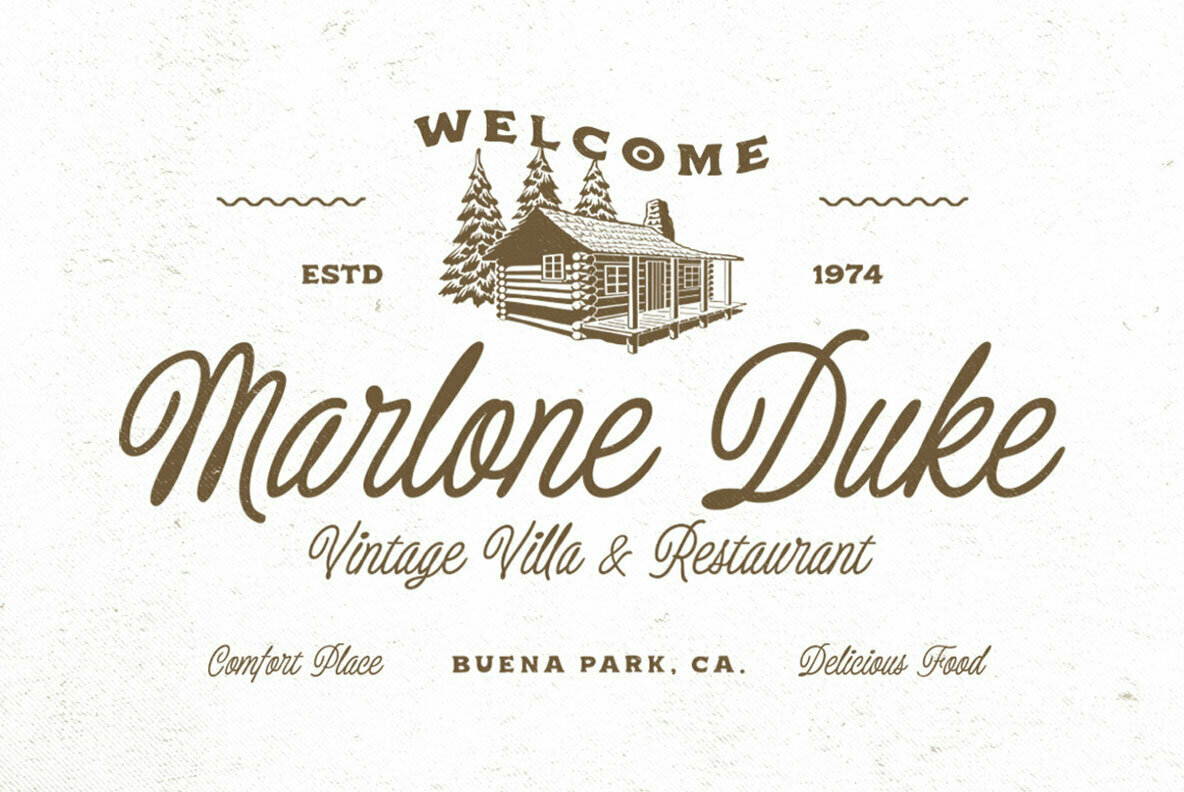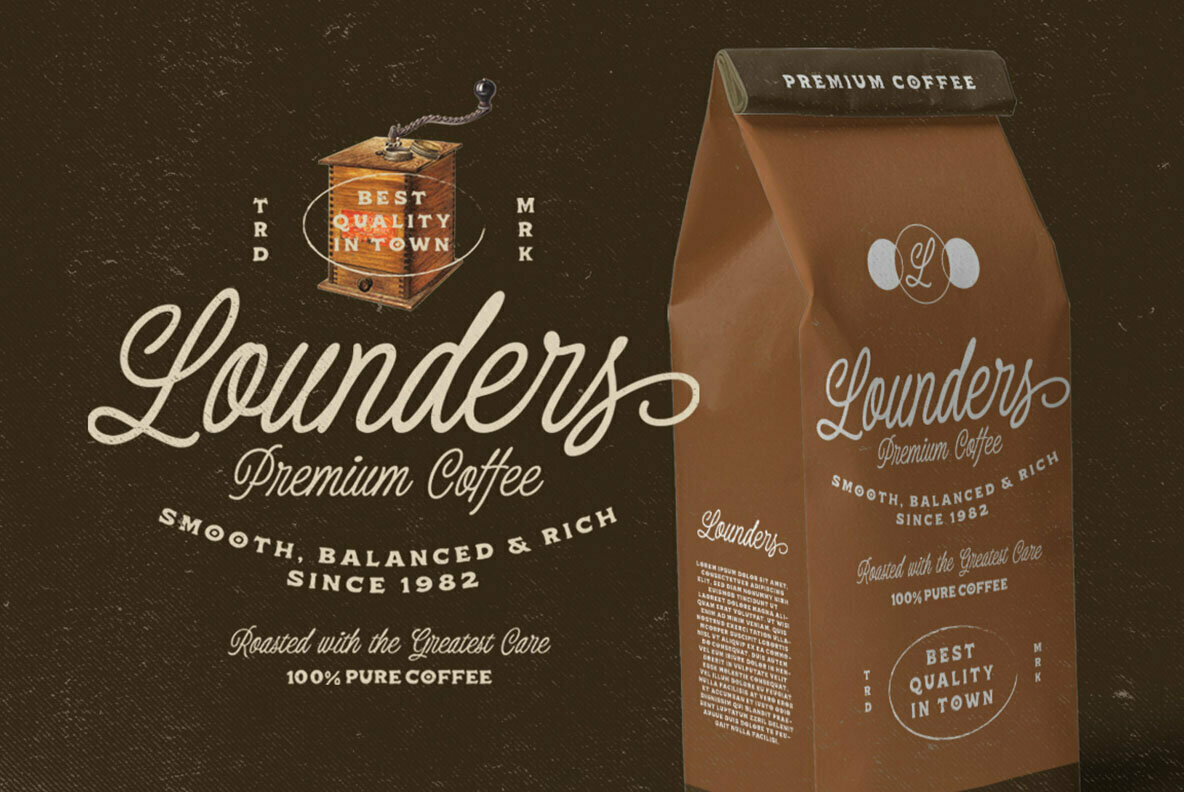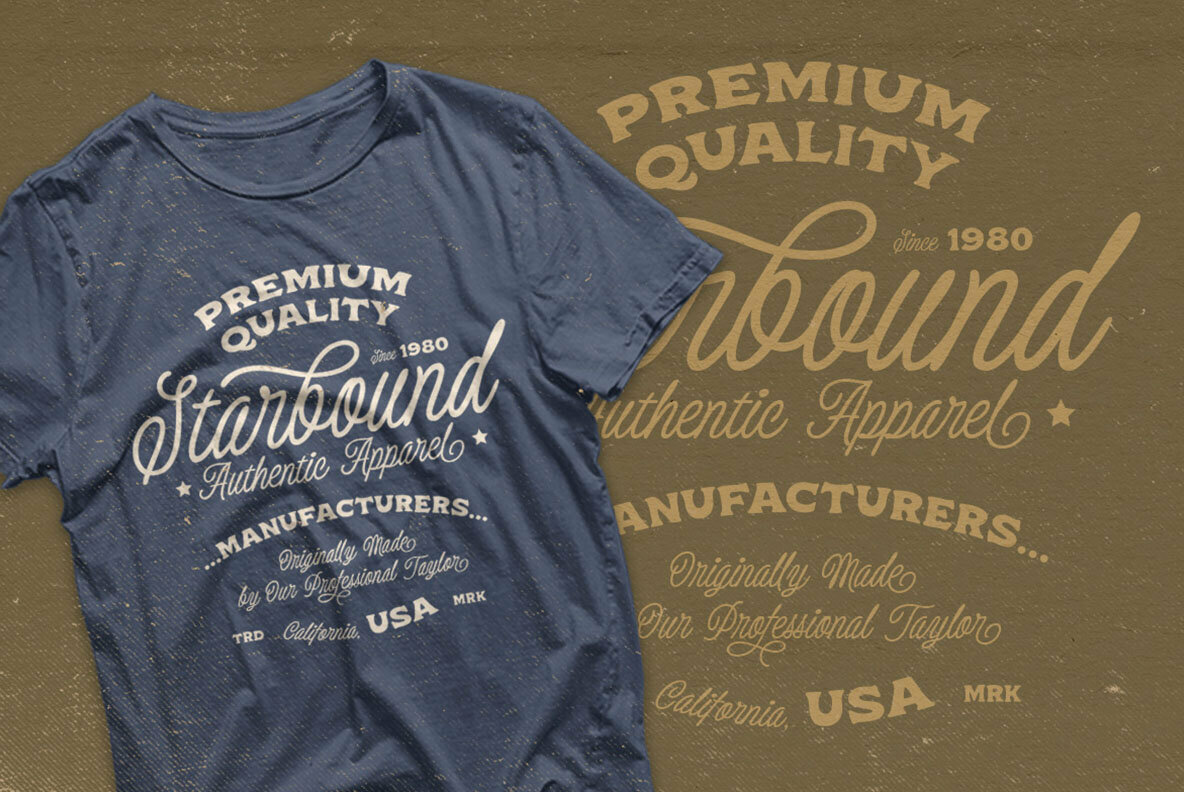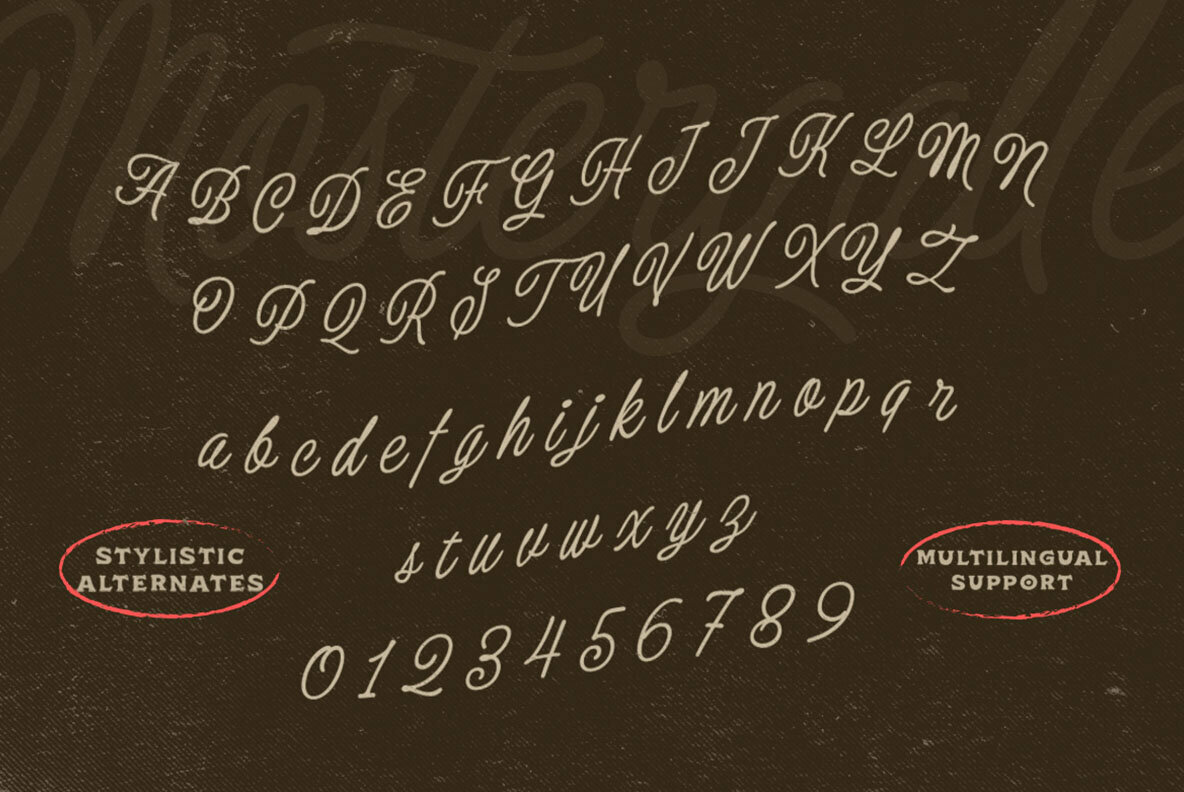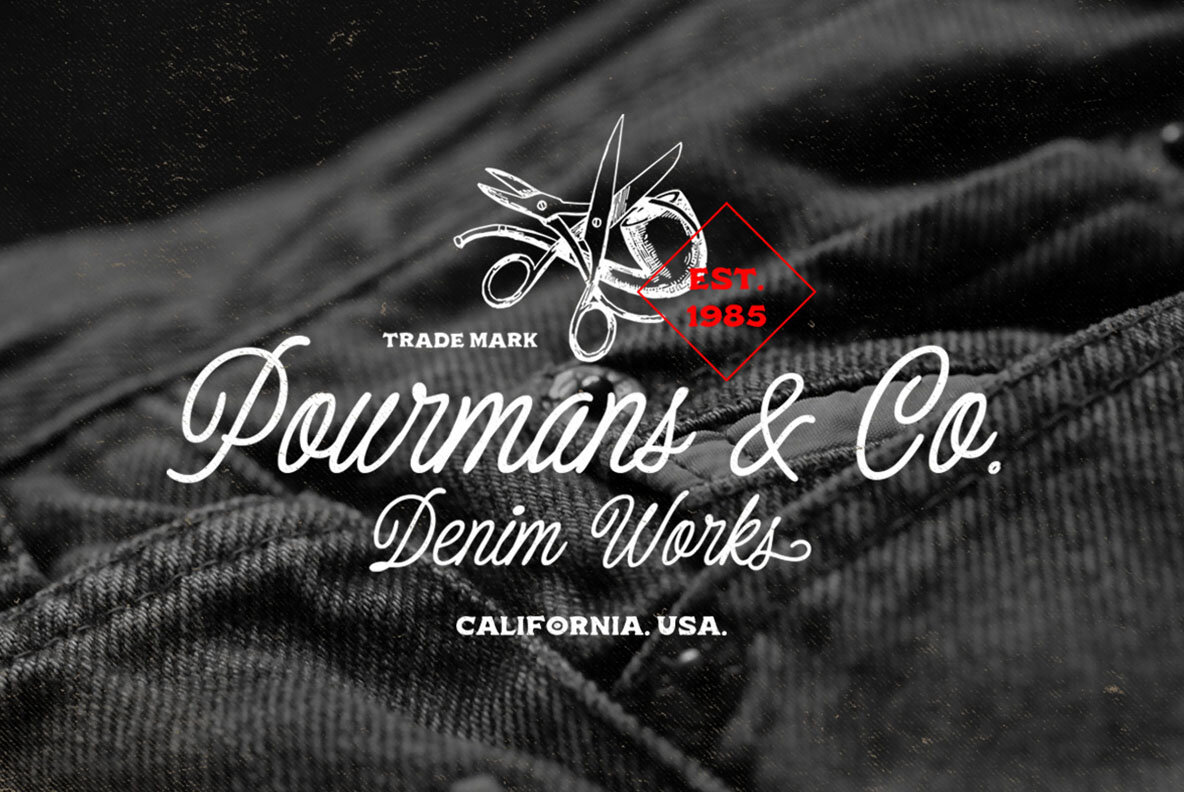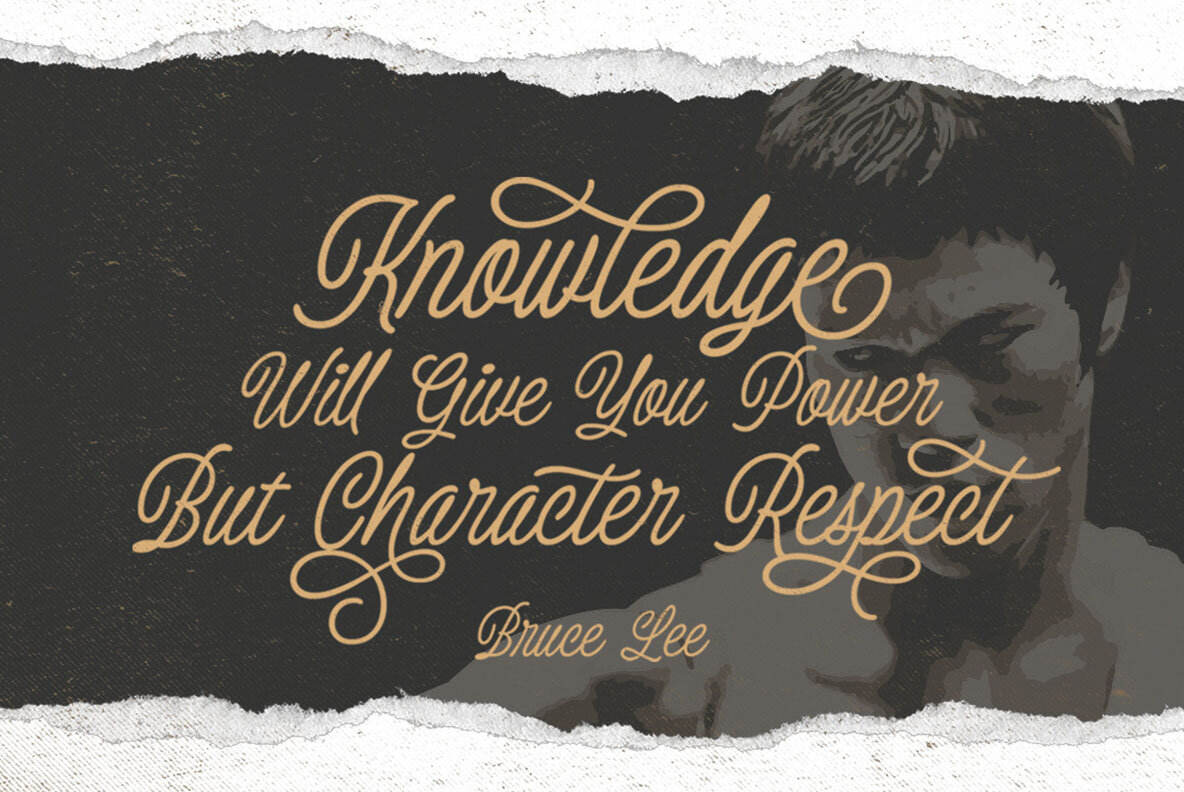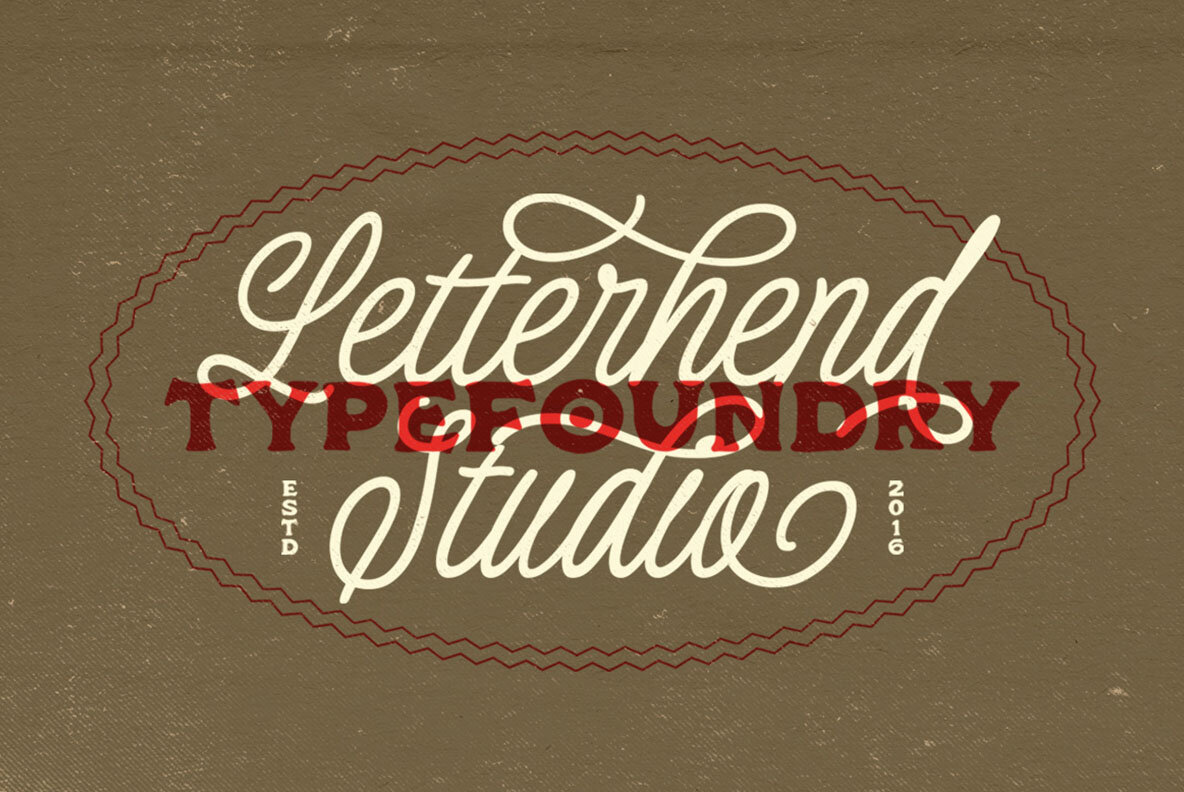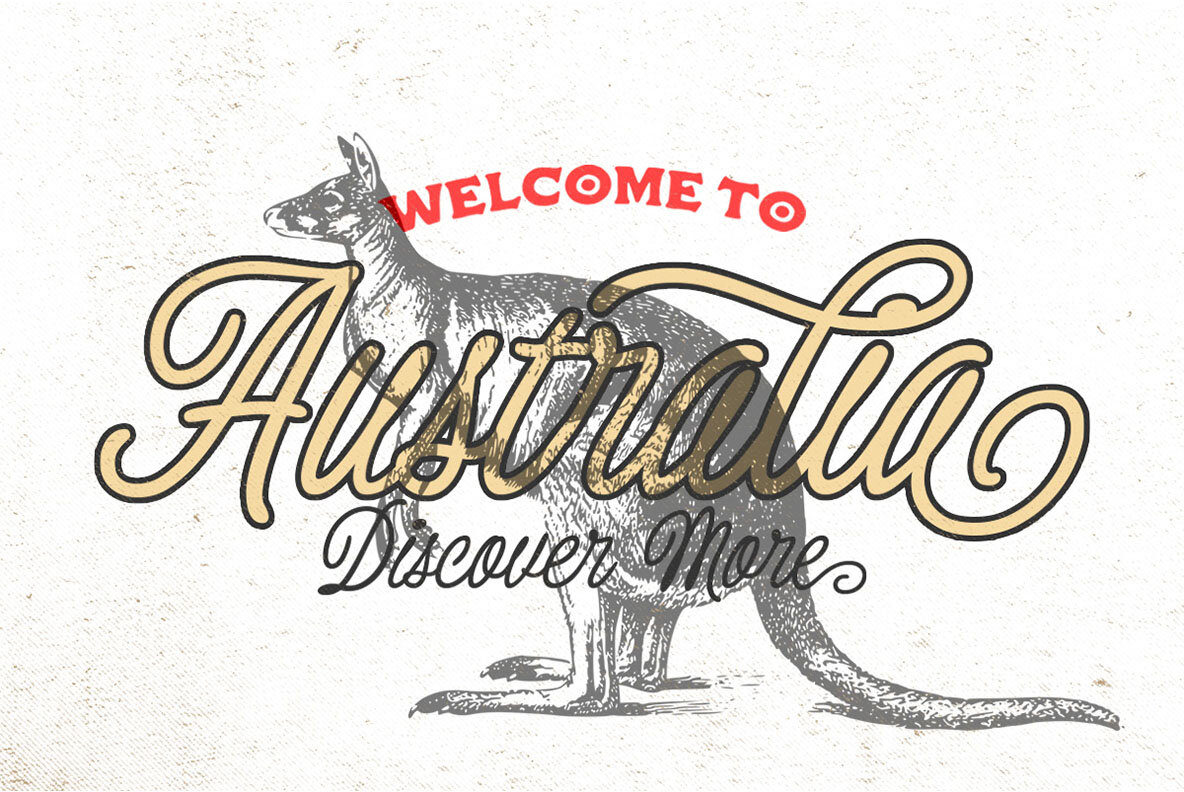
Mostergalle Font
Mostergalle Regular
Dive into the nostalgia of yesteryear with Mostergalle by Letterhend Studio. This script font boasts a bold, vintage flair, enhanced by its expressive swashes. It's an ideal choice for retro lettering, providing an authentic look with ease. Perfectly suited for applications in logos, headlines, signage, and a plethora of formal contexts such as invitations, greeting cards, and packaging. Whether you're designing for fashion, stationery, or advertising, Mostergalle delivers a touch of classic elegance.Mostergalle: A Bold Retro Script